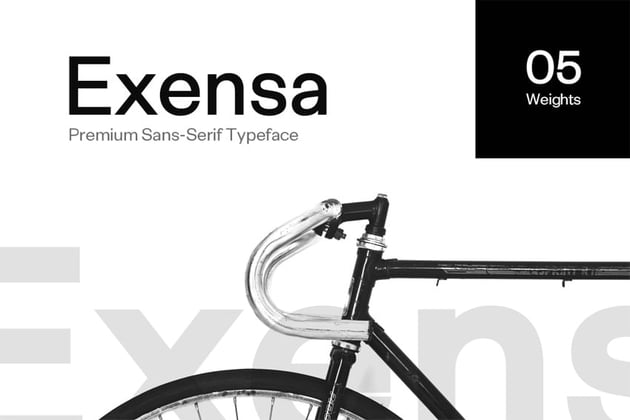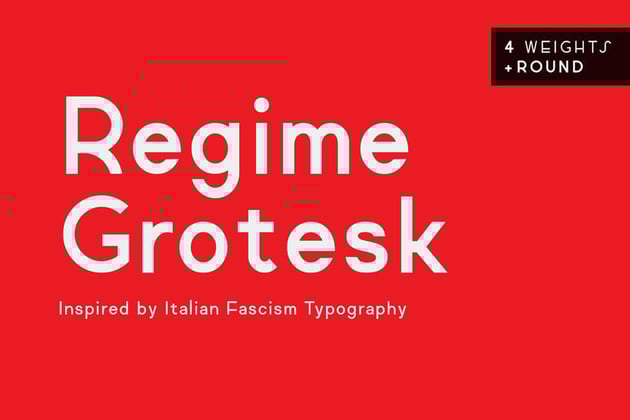
25+ Best Grotesque Fonts (Typefaces Ready to Download)
Grotesque sans serif fonts are versatile and beautiful. Their neutral, clean aesthetic, as well as their ability to serve so many different roles in a design's composition, make them incredibly popular. In this article, we'll take a look at the grotesque typeface classification, as well as some inspiring examples of this aesthetic from Envato Elements.
What Is the Grotesque Typeface Classification?
So, what is the grotesque typeface classification? If you're unfamiliar with typeface classification, think of it as a means of identifying the visual characteristics of type. For example, some fonts are considered serif typefaces, and some of them are considered sans serifs—or fonts that do not have a serif. A grotesque sans serif font lacks a serif, which is a little extra stroke commonly seen at the end of some typefaces. It has, instead, a more abrupt edge.
If you're like me, you might wonder, "Why in the world would they give these fonts a name like grotesque? Doesn't that sound strangely derogatory?" It has been suggested that the meaning may be just that—that they weren't necessarily attractive fonts in their initial time.
Think about the aesthetics you might commonly associate with the 19th century or the Victorian era—grotesque typefaces might seem quite devoid of detail or artistry, in contrast. They lack serifs, and they lack any sort of ornate or decorative quality. Instead, they are rather stiff and clean.
But this clearly isn't the case today, as grotesque sans serif fonts are still with us today, versatile and well-used across platforms. Neo-grotesque typeface design is a continuation and expansion of the grotesques, and they are some of the most popular fonts out there today. For example, Helvetica and Arial are two neo-grotesque typeface designs.
We continue to see the grotesque typeface aesthetic influence type design today. Look out for key design elements such as a squared "M", as we see in Monotype Grotesque, and a spurred "G" as we see in Helvetica. Remember, these fonts are sans serifs—and not necessarily geometrics. Particularly in some of the older grotesques, you might see some irregular proportions.
Let's take a look at some beautiful typeface design, all with inspiration from grotesque sans serif type design. Whether you're looking for a neo-grotesque typeface or something that takes the grotesk font aesthetic in an unexpected direction, there's plenty to see.
Take a look at this collection of fonts for creative inspiration, to help you choose a font for your next project, or pick up a few to add to your font library.
30+ Best Grotesque Fonts
1. Regime Grotesk Font
If you're looking for a versatile addition to your font library, give this font a look. It includes four weights and could serve so many different roles in so many different compositions.
2. Focus Grotesk Geometric Sans-Serif Typeface
This font is a bit more rounded, and it creates a sleek, semi-geometric aesthetic. Check out some of the interesting variation here, like what we see in the "u" versus the "s" in the word "focus".
3. Exensa Grotesk Sans Serif Typeface & Web Fonts
Here's another font with a lot of versatile potential. Its neutrality means it can serve your work in so many different ways. Pair it with a decorative font if you're looking for a supplement.
4. Mriya Grotesk Premium Sans-Serif Typeface
Choose from four weights and four italics in this lovely font family. This is a great example of how different weights can be used to our advantage. Use this font on its own, or pair it with another typeface.
5. Physineo Grotesque Typeface
Isn't this font stylish? Try pairing the thin weight with the bold weight to help establish hierarchy in your next composition. This font could serve so many different purposes in your design.
6. Argo Neo Grotesque Typeface
Here is a different take on the grotesque sans serif aesthetic. It has more angular edges and even a sort of futuristic look and feel. If you love sans serifs, but you also want something different, give this one a try.
7. Gorga Grotesk Font
This is such an elegantly designed typeface. There's plenty to work with here too—check out the weights, the italics, and the variants too. If you're looking for an all-around strong addition, this one is a great choice.
8. Phenom Grotesque Modern Typeface + Webfonts
Clean, elegant, and sleek—this font has plenty of offer. It also comes with web fonts included, so it's ready to go for your website designs. It's a great fit for print too, like packaging, branding, and more.